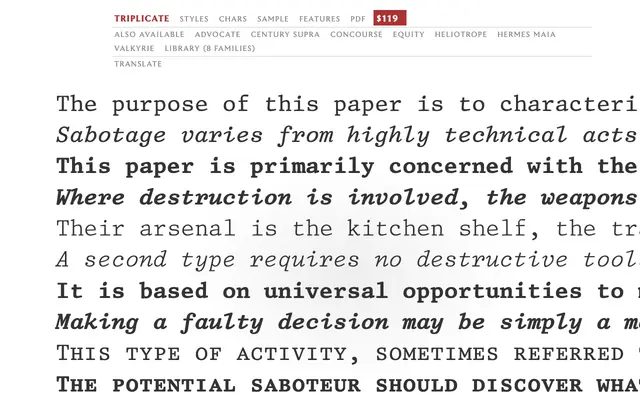
Triplicate
A monospaced serif from Matthew Butterick designed to bring warmth and legibility to coding and writing contexts where most faces sacrifice character.
Triplicate pairs fixed-width metrics with the texture of a traditional serif, making it unusual among coding fonts that typically favour sterile geometry. It is designed by Matthew Butterick, whose Practical Typography has shaped how many designers and writers think about type in the browser. The result reads well at small sizes in a terminal or text editor while retaining enough personality for literary and editorial use.
Triplicate is a monospaced typeface with serif details, designed for coding and writing environments. The combination of fixed-width metrics with serif letterforms places it firmly in the monospaced serif subcategory.